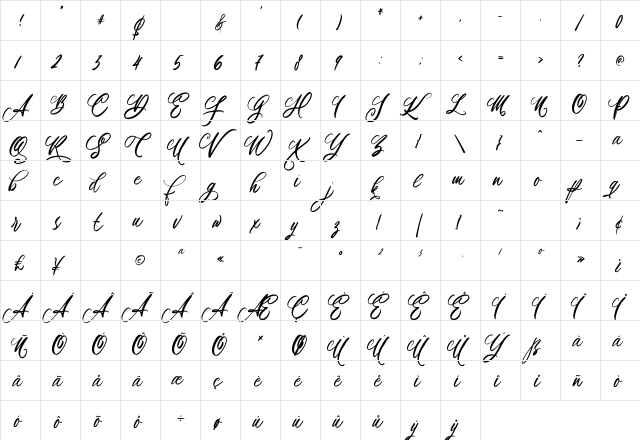
Gifolgh Regular Font Preview
Gifolgh Regular
Gifolgh Regular Font Details
| Designer | Colllab Studio Team |
Design Context for Gifolgh Typeface
Gifolgh is a composed and adaptable typeface that performs quietly and consistently across a wide range of design contexts.